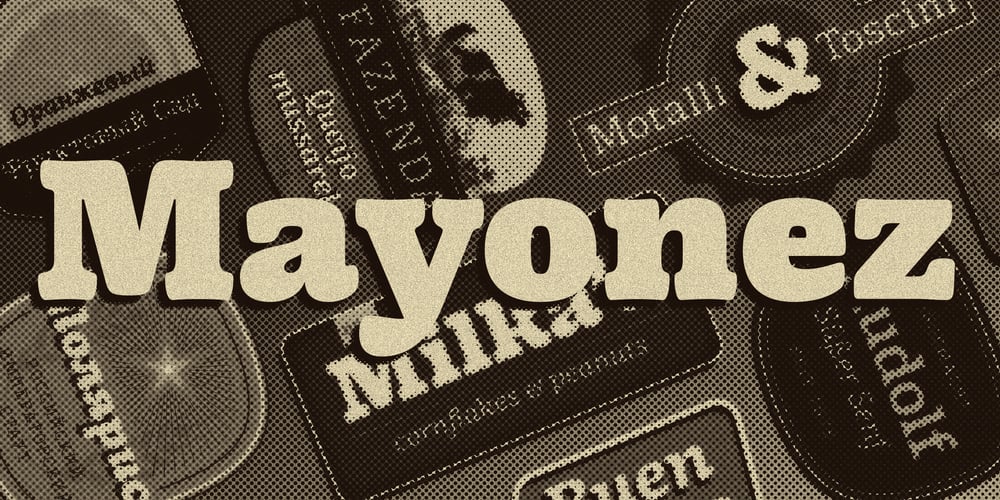
Mayonez Font Family was designed by Sergio Ramírez Llamas and published by Sardiez. Mayonez contains 14 styles and family package options. Mayonez is a typeface with rational structure and axis but softened with rounded contours and cupped serifs, getting as result a balance between seriousness and friendliness. The shapes have a soft appearance but without lacking definition. A more fluid structure influenced by calligraphy is proposed for the italic variants, in this case the uppercase letters adopted a simplified semiserif structure that works better with the lowercase letters. Also the figures are very different from the roman version and follow more faithfully the italic style. In an attempt to give Cyrillic lowercase romans a fresh look, symmetrical serifs inherited from the versal tendency are mostly avoided thus getting simpler structures closer to the latin forms. This type is good for commercial and editorial uses like advertising, packaging and pages with showy headlines where a warm touch wants to be given. The character set includes a group of figures and currency symbols with standard height and another suited to match better with lowercase letters. Mayonez was selected to be part of the Communication Arts Typography annual in 2015.